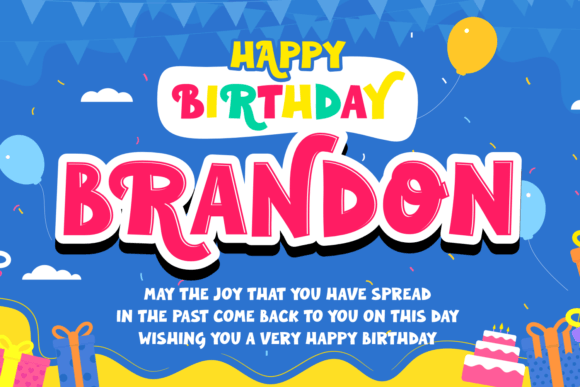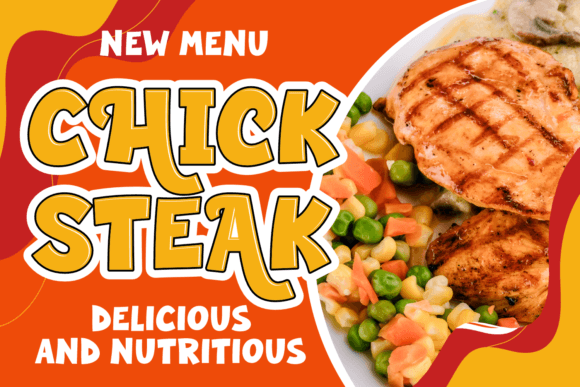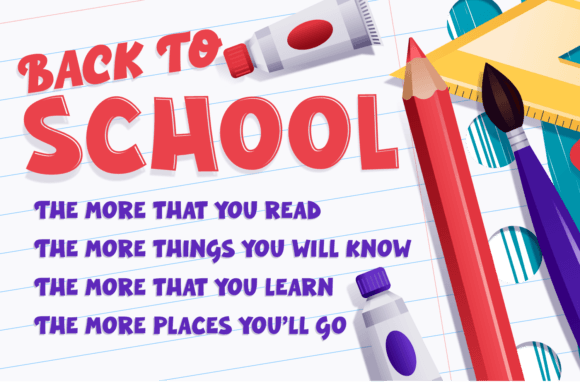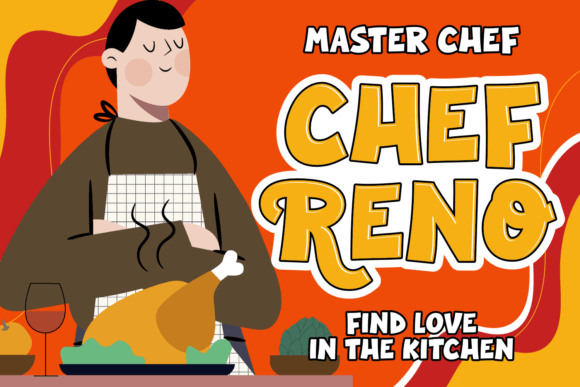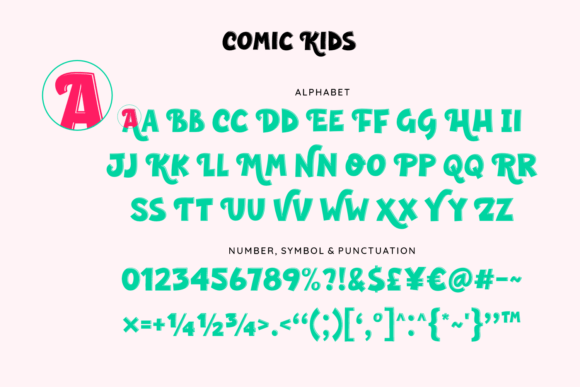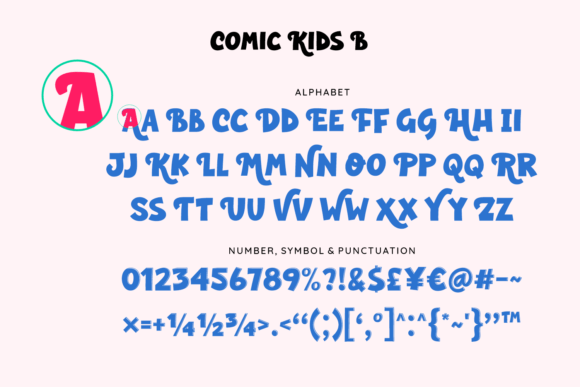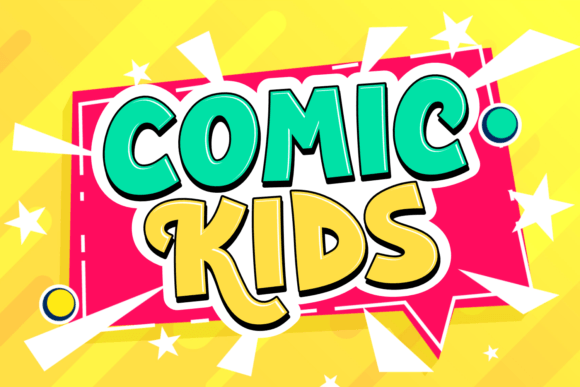
Introducing Comic Kids Font: The Ultimate Cartoon-Style Display Font
Are you looking for a font that can add a playful and attention-grabbing touch to your designs? Look no further than Comic Kids Font! This cartoon-style display font is perfect for creating eye-catching visuals that will instantly grab the attention of your audience. With its great punchline, BOOM!, everything written with this font will be instantly recognizable and leave a lasting impression.
What is Comic Kids Font?
Comic Kids Font is a unique and fun font that is designed to bring a touch of childhood nostalgia to your designs. Its cartoon-style letters are bold, colorful, and full of personality, making it perfect for a wide range of applications. Whether you’re creating a comic-style book cover, designing a poster for a classic or retro event, or simply looking for a fun font to use on your social media pages, Comic Kids Font is the perfect choice.
Uses for Comic Kids Font
So, what can you use Comic Kids Font for? The possibilities are endless! Here are just a few ideas to get you started:
- Comic-style book covers: Add a touch of excitement and energy to your book covers with Comic Kids Font. Its bold and colorful letters are sure to grab the attention of potential readers and make your book stand out.
- Online games: Create eye-catching titles and headings for your online games with Comic Kids Font. Its playful and fun style is perfect for games that are designed for kids or families.
- Classic/retro event posters: Create posters that look like they were pulled straight from the 80s or 90s with Comic Kids Font. Its nostalgic style is perfect for events that are retro-themed or vintage-inspired.
- School supplies font: Add a touch of fun and personality to your school supplies with Comic Kids Font. Use it to create colorful and eye-catching labels, stickers, and other materials.
- Posters: Create eye-catching posters for movies, TV shows, or other events with Comic Kids Font. Its bold and colorful letters are sure to grab attention and make your poster stand out.
- Movie titles: Add a touch of excitement and energy to your movie titles with Comic Kids Font. Its playful and fun style is perfect for kids’ movies or family-friendly films.
- YouTube covers or thumbnails: Create eye-catching YouTube covers or thumbnails with Comic Kids Font. Its bold and colorful letters are sure to grab attention and make your video stand out.
- Social media page covers: Add a touch of fun and personality to your social media pages with Comic Kids Font. Use it to create colorful and eye-catching covers that reflect your brand’s personality.
Why Choose Comic Kids Font?
So, why should you choose Comic Kids Font for your next design project? Here are just a few reasons:
- Attention-grabbing: Comic Kids Font is designed to grab attention and make a lasting impression. Its bold and colorful letters are sure to stand out in any design.
- Playful and fun: Comic Kids Font has a playful and fun style that is perfect for designs that are aimed at kids or families.
- Versatile: Comic Kids Font can be used for a wide range of applications, from comic-style book covers to social media page covers.
- Easy to read: Despite its bold and playful style, Comic Kids Font is easy to read and understand, making it perfect for designs that need to communicate a message.
Tips for Using Comic Kids Font
Here are a few tips for using Comic Kids Font in your designs:
- Use it sparingly: While Comic Kids Font is attention-grabbing and fun, it can be overwhelming if used too much. Use it sparingly to add a touch of excitement and energy to your designs.
- Pair it with other fonts: Comic Kids Font can be paired with other fonts to create a unique and interesting design. Try pairing it with a clean and simple font to create contrast.
- Experiment with colors: Comic Kids Font looks great in bold and bright colors. Experiment with different colors to find the perfect combination for your design.
Comic Kids Font is a unique and fun font that is perfect for designers and crafters who want to add a touch of excitement and energy to their designs. Its bold and colorful letters are sure to grab attention and make a lasting impression. With its versatility and ease of use, Comic Kids Font is a great addition to any designer’s toolkit.